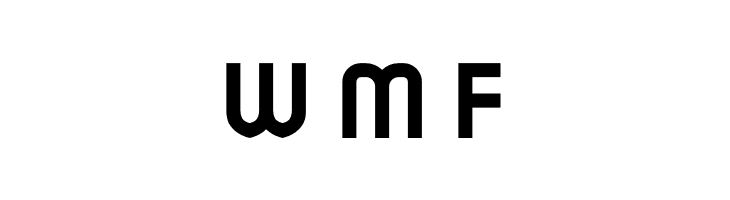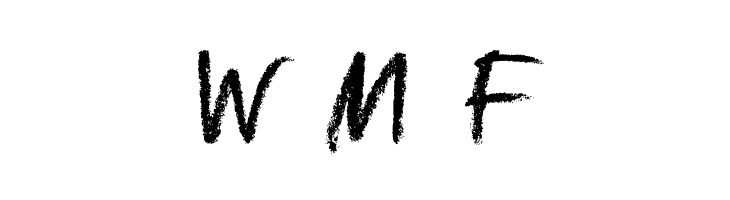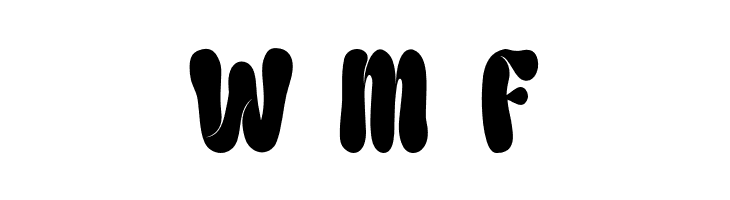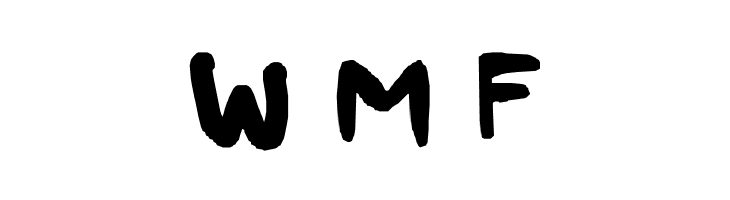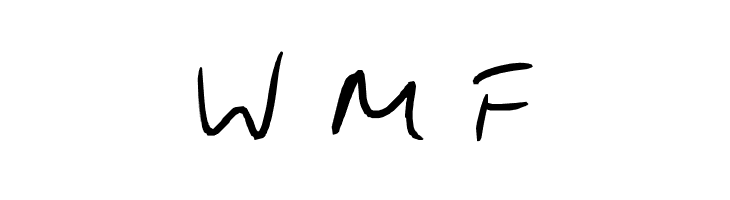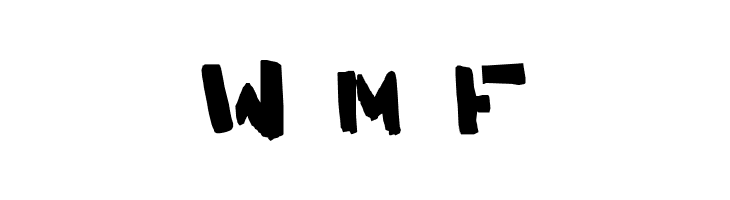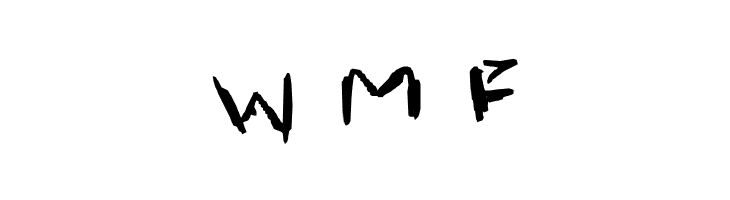
A bold, playful font with thick, rounded strokes and a whimsical style.
A textured, brush-like script font with a dynamic and expressive style.
A dynamic, textured handwritten font with expressive brush-like strokes.
A bold, geometric font with a modern and cohesive design.
A bold, expressive handwritten font with dynamic strokes.
A bold, hand-painted style font with expressive, dynamic characters.
A bold, rounded font with smooth curves and uniform stroke width.
A bold, playful font with rounded edges and a modern, friendly style.
A bold, playful font with rounded edges and a whimsical design.
A playful, artistic font blending script and sans-serif elements.
A spooky, dripping font ideal for horror themes.
A bold, angular font with a hand-drawn, geometric style.
A bold, textured brush-style font with a hand-painted look.
A textured, brush-style handwritten font with a dynamic and artistic appearance.
A playful, 3D outline font with a hand-drawn, comic book style.
A bold, playful font with a three-dimensional shadow effect.
A bold, playful handwritten font with smooth, rounded edges and a lively appearance.
A playful, bold script font with smooth, rounded edges and a dynamic slant.